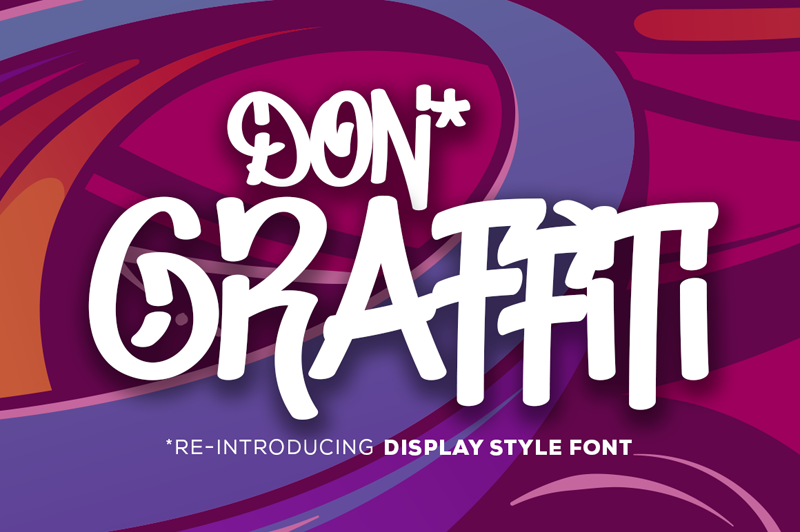
Graffiti fonts are a great way to add edge to any design, combining the rebellious spirit of street art with the refinement of typography design. Whether you're after chunky bubble font or sharp, grungy spray-painted type, the best graffiti fonts are an instant eye catcher.
01. Don Graffiti
Inspired by old school urban graffiti, Don Graffiti is a classic yet expressive take on traditional street art typography. With a refined, elevated look, this display style font is perfect for playful designs that need some extra attitude. With its angular letterforms and bespoke flourishes, Don Graffiti gives the appeal of authentic street art edge with the cleanness of a professional font.
02. Kelsi
First up in our pick of the best graffiti fonts, Misha Vlasov's Kelsi is a beautiful graffiti bubble font that could be great for big display text. It's a caps-only font but comes in two styles: filled and outlined. It's clearly inspired by the graffiti bubble writing style, but has a slightly refined feel to it as well as doze of quirky personality. It's free for personal and desktop commercial use.
03. Dx Bloop
The bubbles get even bigger in this extravagant ballooning free graffiti bubble font from Dirty Line Studio. The sample images remind me of cotton candy as much as graffiti, and it has very playful feel. I think this would look great on large posters that want to get attention. It looks good combined with a much simpler sans serif display font too. This font comes in SVG format.
04. Urban Decay
Turning to more distressed graffiti fonts, Urban decay is a handmade brush font that creator Zofos made to 'celebrate graffiti, urban exploration, street calligraphy and inner city living.' This font has a rugged authenticity that will bring an urban feel to your projects. It's free to download but donations are welcome.
05. Docallisme On Street
This font has a unique 3D effect that is reminiscent of traditional graffiti. It's chunky, bold and an excellent choice if you're looking at making a statement! This font is free to download, but the creator asks for a donation if you're looking to use it commercially.
06. Rusto Fat Cap Brush
Designed by Luis Di Lascio and Patri Pérez, Rusto Fat Cap Brush is a fun and chunky font with an authentic graffiti feel. Based on the homemade graffiti mop, this font is perfect for giving a youthful or urban vibe to a project.
07. Sprite
Sprite is a functional free graffiti font, which has the benefit of being highly legible whilst keeping the graffiti feel, in a brushstroke style. Created for a wide audience, it offers an approachable way of adding an urban edge to your project.
08. Philly Sans
A heavy, lowercase-only font that has a graffiti feel while also being super clear to read, Philly Sans is certainly versatile. Made by Philatype, this is a great typeface for display type. It's free for personal use.
09. The Graffiti Font
This colourful bubble writing packs a vibrant punch. Created by graphic designer Mike Karolos, this font is totally free but available only available in a png format (it's not keyable). It also comes in a black-and-white option.
10. Knight Brush
Inspired by the vintage graffiti era, Hendra Pratama created this free graffiti font with hand-painted signage in mind. This adaptable font is made to resemble real brush strokes and is a bold choice. The free version is a demo for personal use only, but you can download the full commercial option for $15.
11. Fat Wandals
Fat Wandals, created by Mans Greback, is a free, personal use-only version of his Wandals font family. It's a great-looking script font with lovely flowing strokes that look like they've been done with a chisel-tip marker, and it comes with a full set of characters with loads of variants and all the punctuation you'll need.
12. Don Graffiti
Created by Måns Grebäck, this stylised ink-inspired font has the appeal of bespoke calligraphy with a graffiti edge. The typeface has a distinct weight to it, thanks to each letter's dynamic shading, giving the design a messy appeal thanks to its drops, splats, and slow drips of ink rather than clean strokes.
13. Grizzly Attack
If grizzly bears decided to try their paws at graffiti by scratching directly onto the wall with their claws, then it might look something like this striking script font by Rometheme. It's all-caps, with numerals and a decent selection of extra characters.